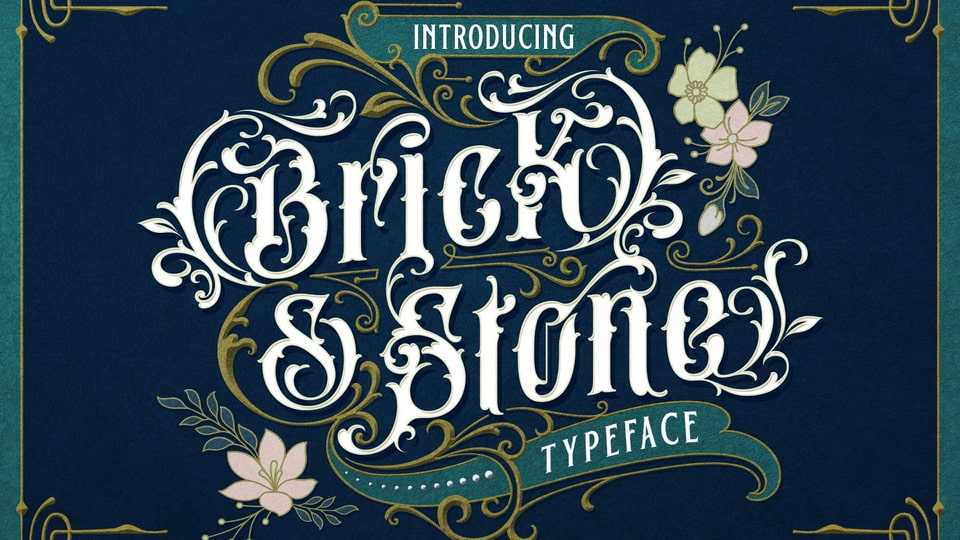
Download Brick Stone font, a timeless and elegant typeface that beautifully captures the essence of the Victorian era. Brick Stone font is a masterful blend of intricate craftsmanship, vintage charm, and artistic flair, making it the perfect choice for designers.